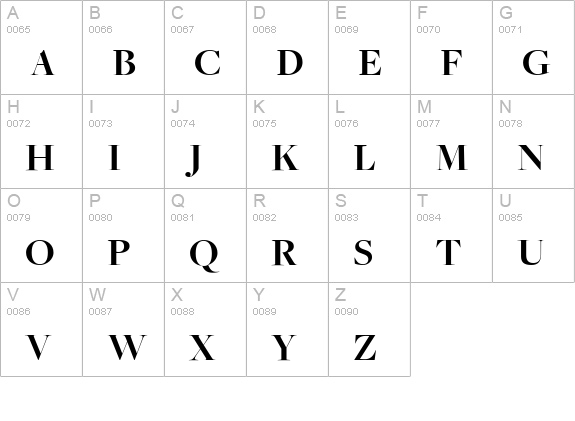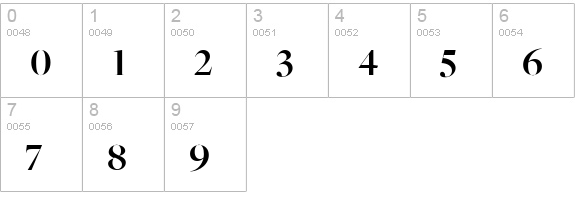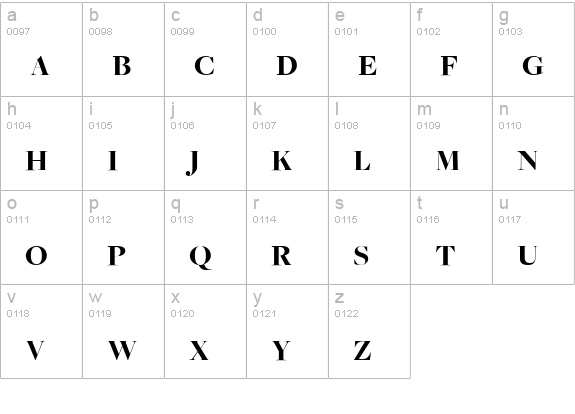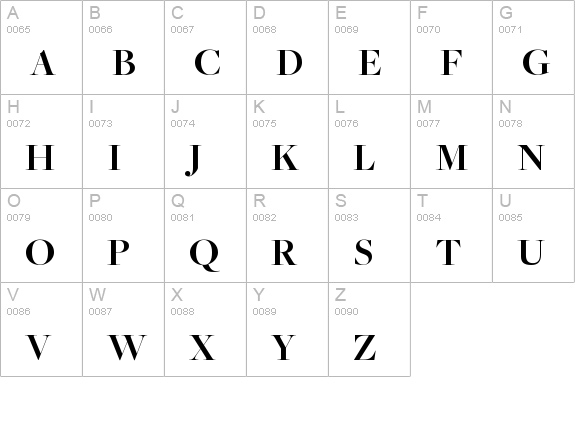
FreightBigBoldSC Font Details
FreightBigBoldSC is a dynamic and powerful font that commands attention with its bold and striking appearance. Designed for conveying a sense of strength and authority, this font is perfect for titles, headings, and other prominent text elements. Its unique design features sharp angles and robust lines that make a statement on any page. What makes FreightBigBoldSC even more appealing is that it is available for free download at FontsMarket.com. This means that you can easily access this impressive font without any cost, allowing you to enhance your projects and designs with its impactful presence. Whether you're creating posters, banners, or logos, FreightBigBoldSC is sure to make a lasting impression with its bold and distinctive style. Download it today and elevate your typography game with this exceptional font.